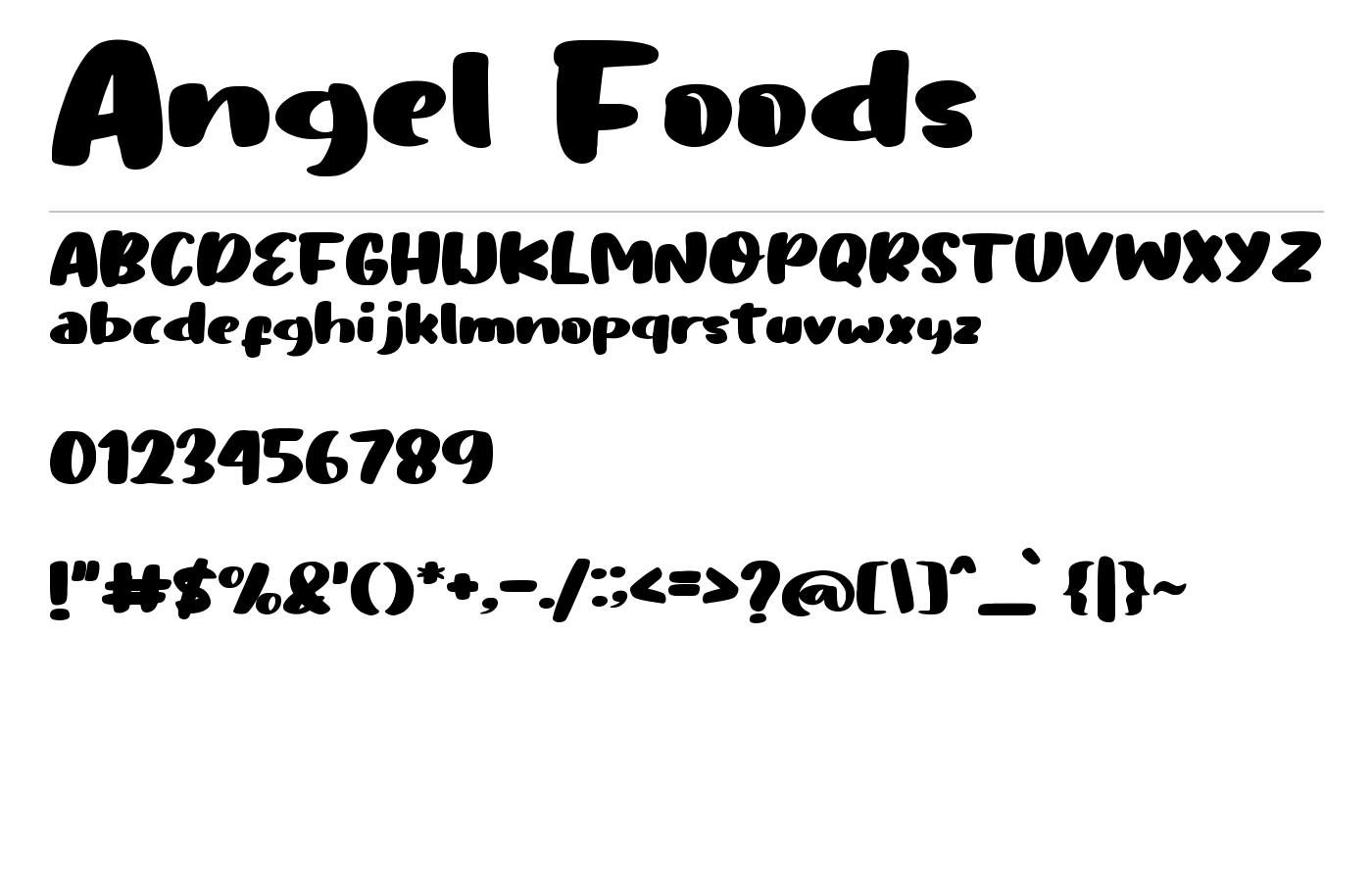
Angel Foods is a bold, rounded sans serif font with a playful, hand-drawn feel that makes it warm and inviting. Its thick, curvy strokes and casual shapes give it a friendly personality perfect for fun, informal branding and packaging, especially in food, kids’ products, or creative projects. This font works great for headlines and logos where a cheerful and approachable vibe is desired.
Angel Foods Font